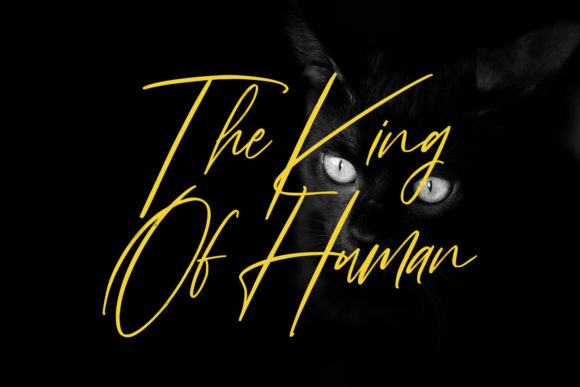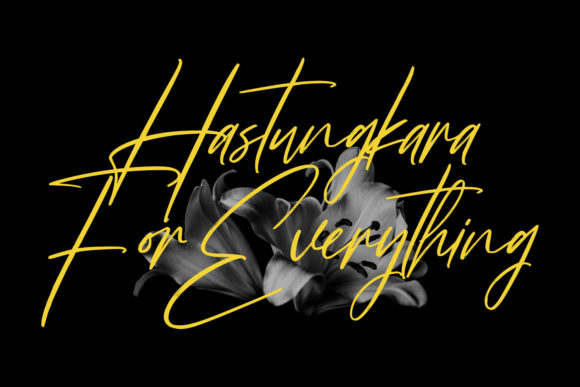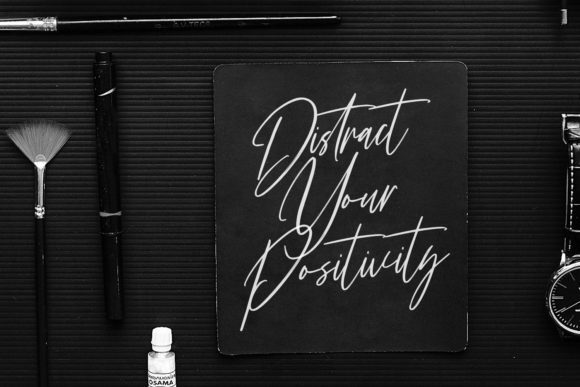
Introduction to Distractiles Font
Have you ever been in the middle of a creative project, struggling to find the perfect font to bring your design to life? You browse through hundreds of options, but nothing seems to capture the essence of your vision. That’s where the Distractiles Font comes in – a beautiful, flowing handwritten font that adds an elegant touch to any design.
With its distinct and timeless style, the Distractiles Font is the perfect resource for designers looking to elevate their creative projects. Whether you’re working on a branding project, a wedding invitation, or a social media graphic, this font is sure to impress. And the best part? It’s available for free download, making it an accessible design resource for anyone looking to create high-quality designs.
Key Features of Distractiles Font
- High-quality design resource ideal for creative projects, offering a unique and stylish aesthetic.
- Designed to be highly legible, even at small sizes, making it perfect for titles, headings, and other text-based elements.
- Unique and creative typography, perfect for adding a touch of personality to any design project.
Honest Review: Distractiles Font
- ✨ High quality design: The Distractiles Font is incredibly detailed and polished, making it a great addition to any design project.
- ✨ Transparent background: The font’s transparent background allows for seamless integration with any image or background, giving you complete control over your design.
- ✨ Versatility: The Distractiles Font is suitable for a wide range of creative projects, from logos to typography-based designs.
- ⚠️ Limited character set: The Distractiles Font only includes a limited character set, which may not be suitable for longer blocks of text.
- ⚠️ Not ideal for small text: The font’s design may not be the most legible when used in small text sizes.
Overall, I’m really impressed with the Distractiles Font. While it may not be perfect, its unique design and high quality make it a valuable addition to any designer’s toolkit. If you’re looking for a free design resource, I’d definitely recommend giving it a try.
Tips for Getting the Most Out of Distractiles Font
To get the most out of the Distractiles Font, experiment with different font sizes, colors, and styles. Combine the font with other design elements to create visually appealing designs. The font’s versatility makes it suitable for a wide range of creative projects.
The Distractiles Font is commonly used in graphic design projects, such as logos, posters, and brochures. Its high-quality nature and transparent background feature make it an ideal choice for creative projects that require attention to detail.